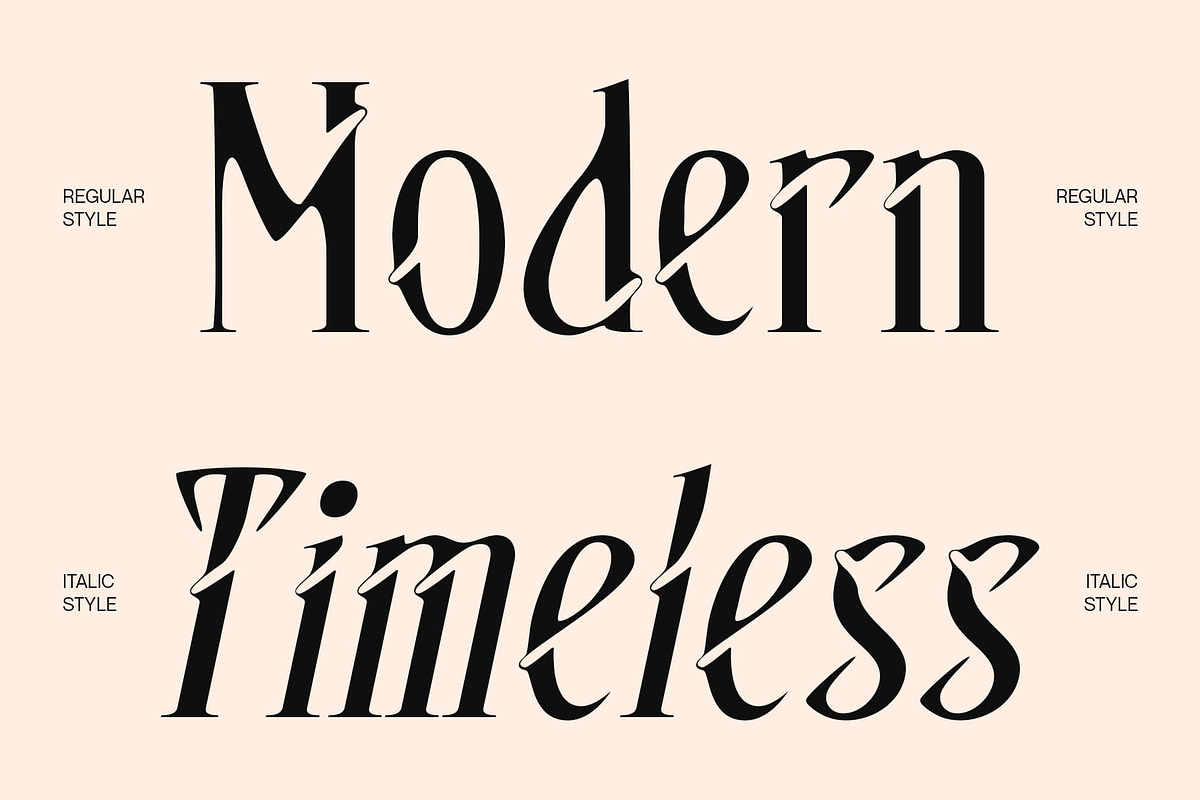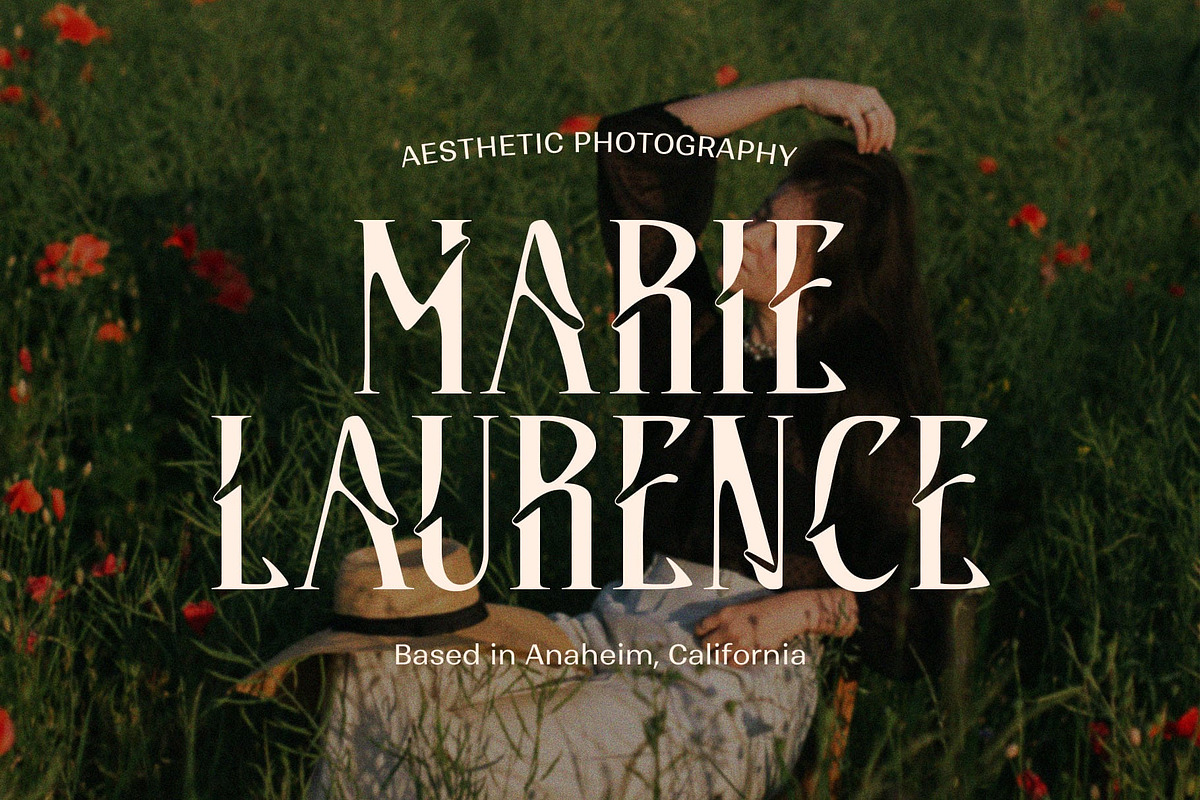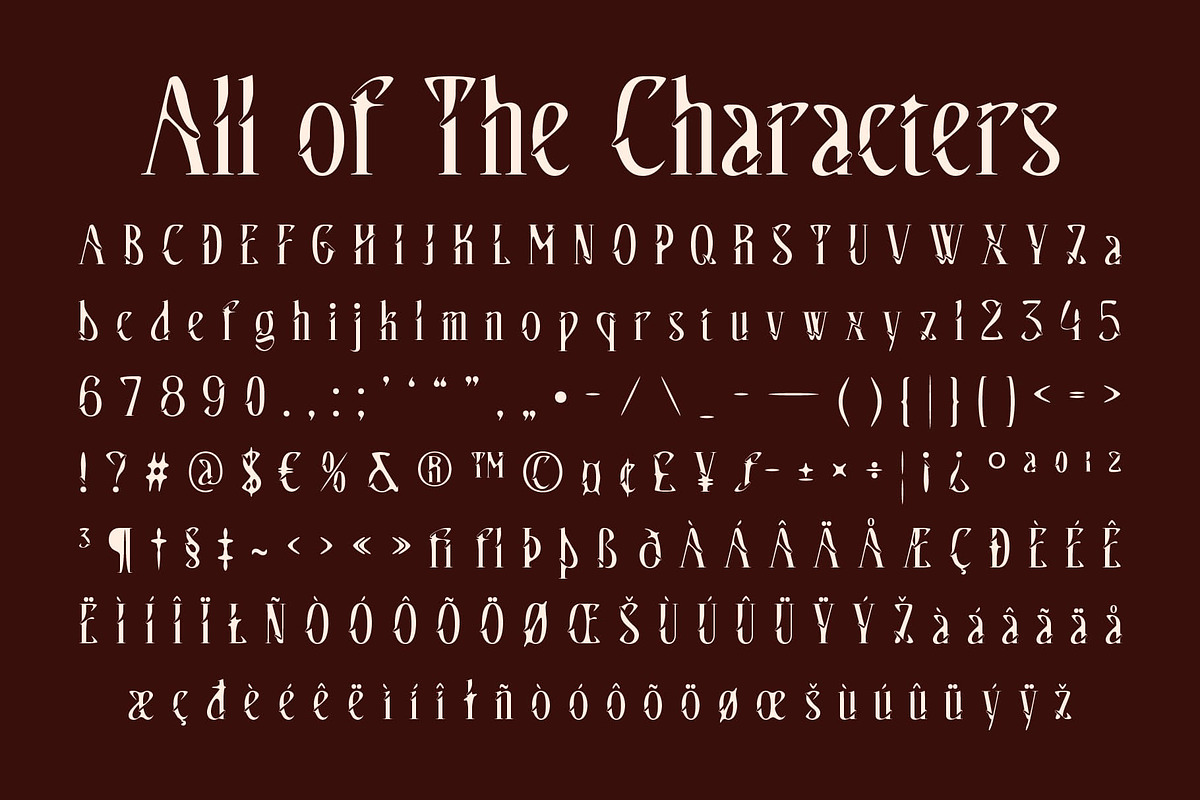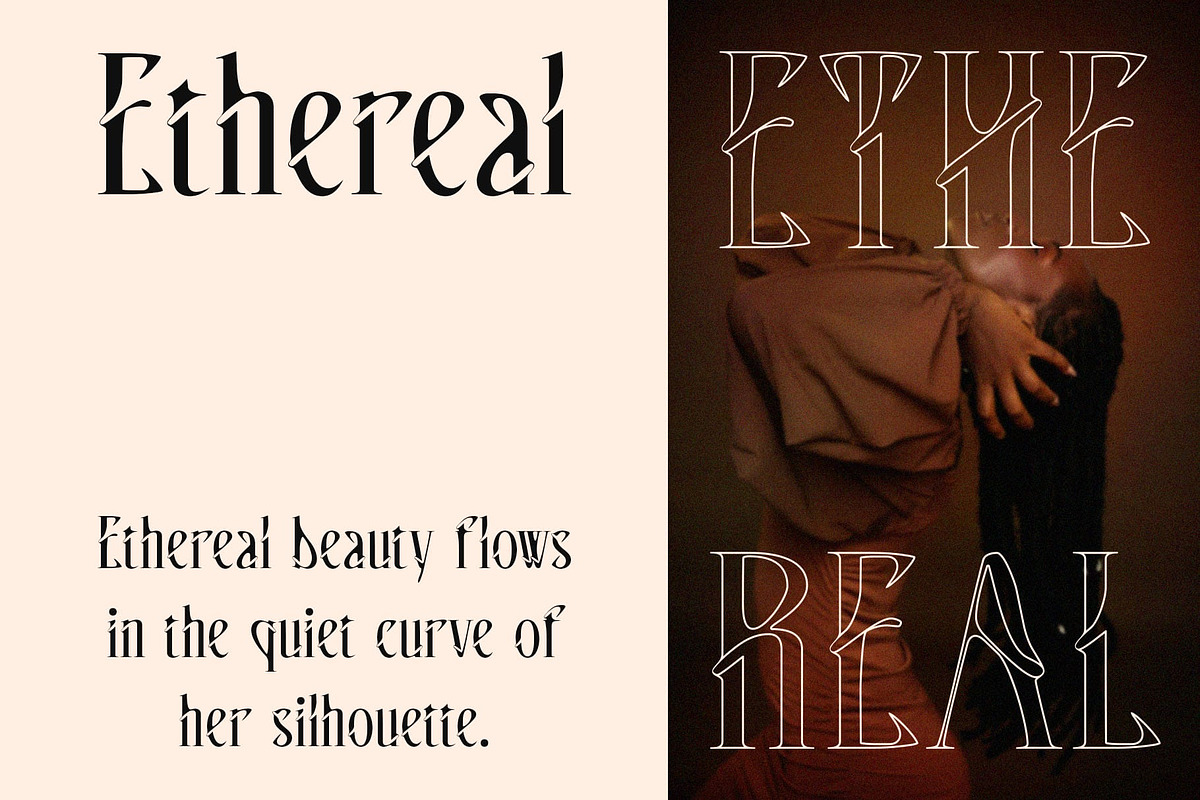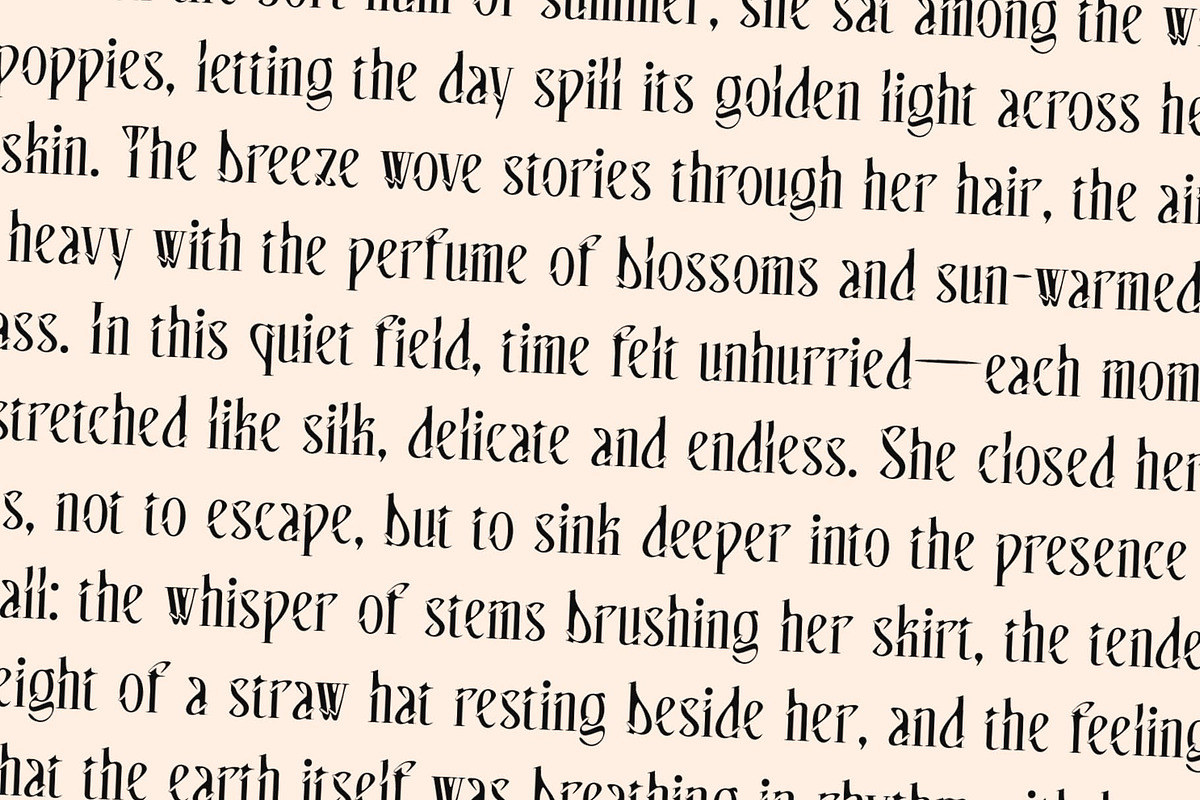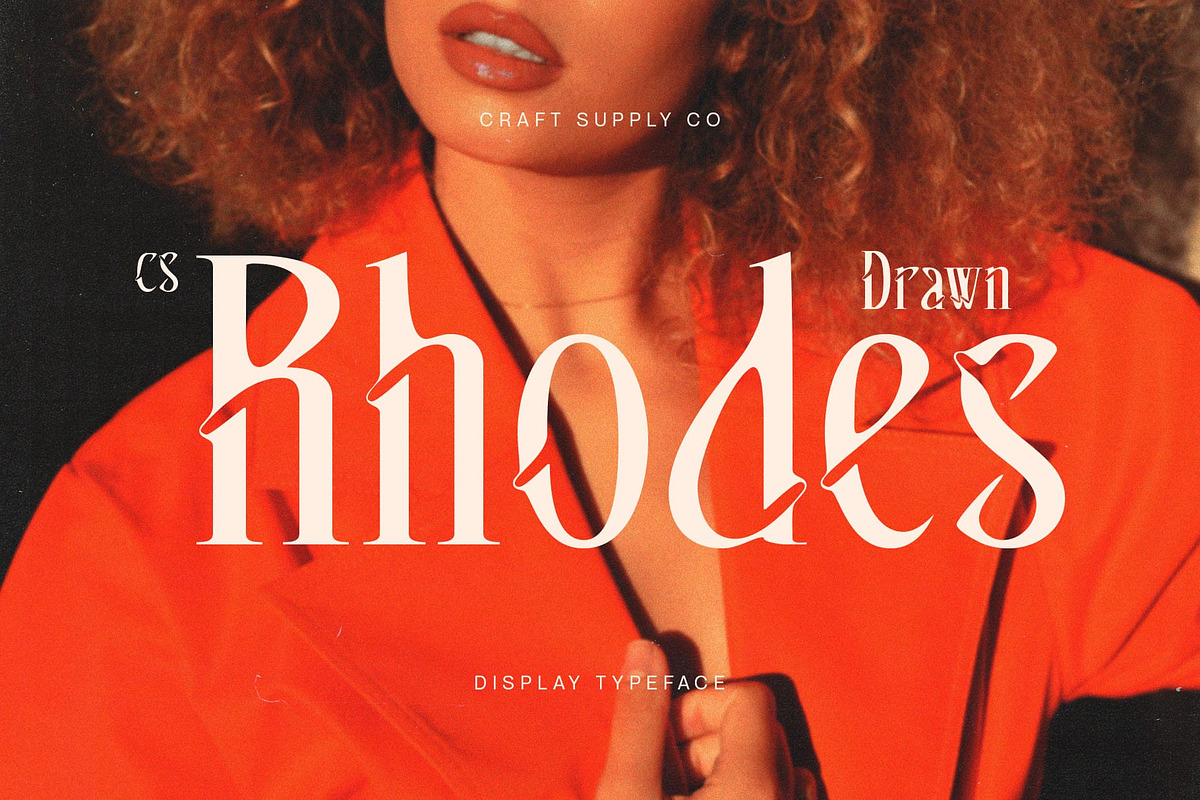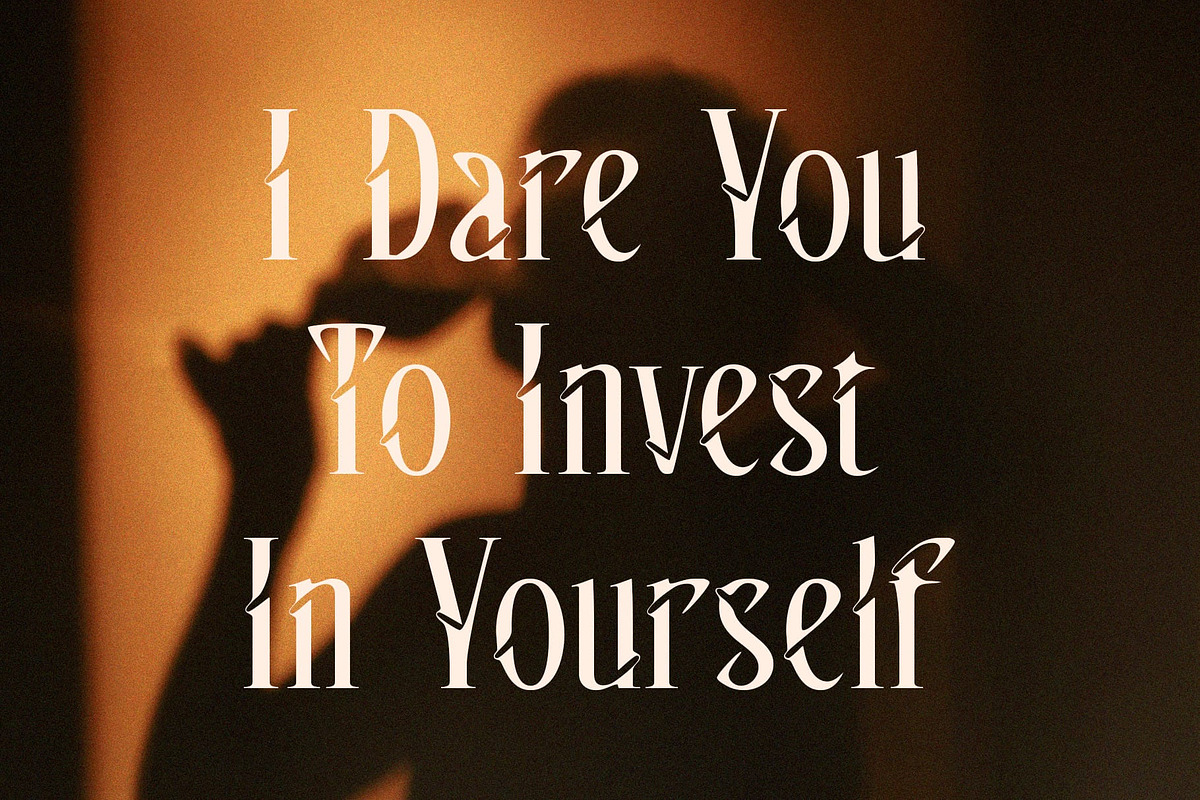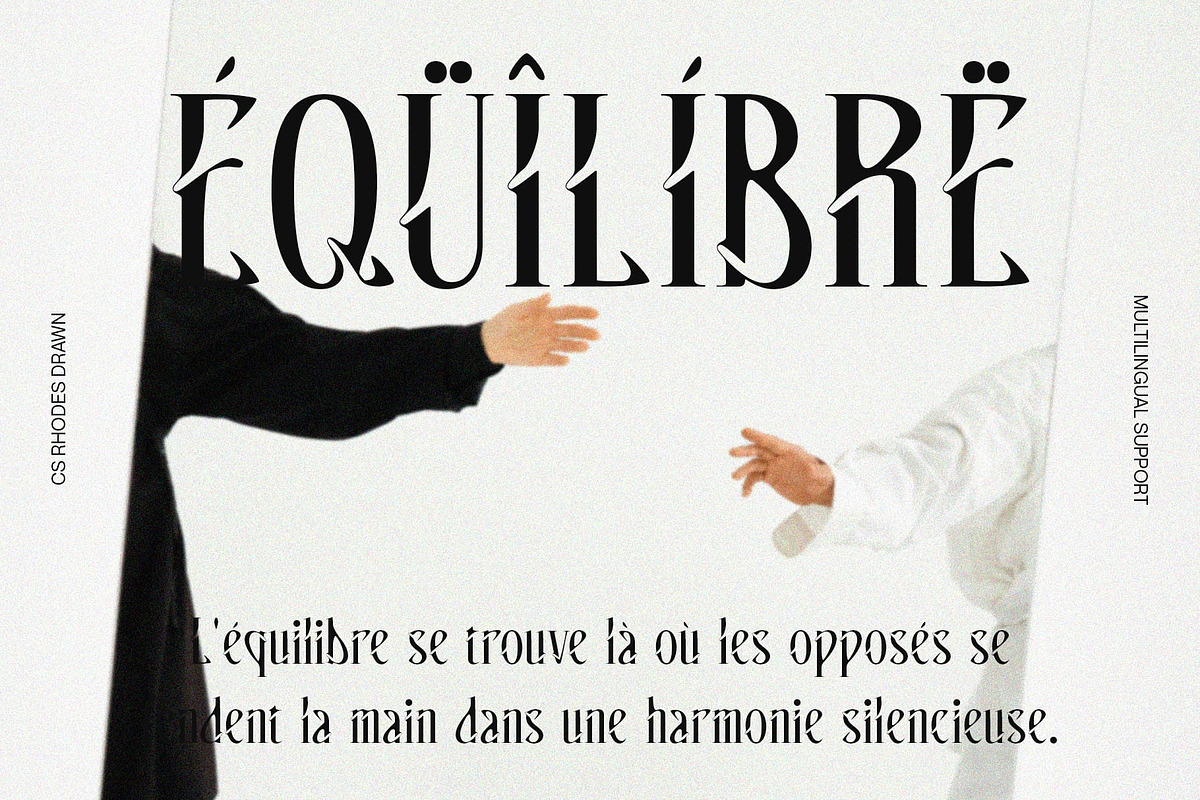
CS Rhodes Drawn
CS Rhodes Drawn: Modern Classic Serif with Handmade Elegance
Modern Classic Serif with Drawn Effect CS Rhodes Drawn is a modern classic serif font featuring long, slender serifs and a clean, contemporary structure. Its elegant design conveys sophistication, refinement, and timeless appeal, perfect for projects that require a polished and luxurious aesthetic.
Handmade Texture for Artistic Depth Enhanced with a subtle drawn effect, each character gains a handcrafted texture that adds depth, individuality, and visual interest. The handmade detailing brings life to the sleek, modern serif forms, creating a font that feels both expressive and refined.
Balanced Classic and Contemporary Style This refined and luxurious font harmonizes traditional serif elegance with contemporary clean lines. Its long, slender serifs emphasize sophistication, while the drawn effect introduces a unique artistic touch, creating a versatile and visually engaging typeface.
Ideal for Luxury and Creative Projects Perfect for luxury branding, editorial layouts, posters, or other high-end creative applications, this sleek and minimalist font adapts seamlessly across various design contexts. Its combination of classic forms, modern clarity, and handmade nuance ensures a distinctive, high-end impression.
Elevate Designs with Expressive Refinement With its carefully proportioned letterforms, elegant serifs, and artisanal texture, this expressive and artistic font provides a typeface that enhances every project. It is an ideal choice for designers seeking a sophisticated, artistic, and visually captivating typographic identity.